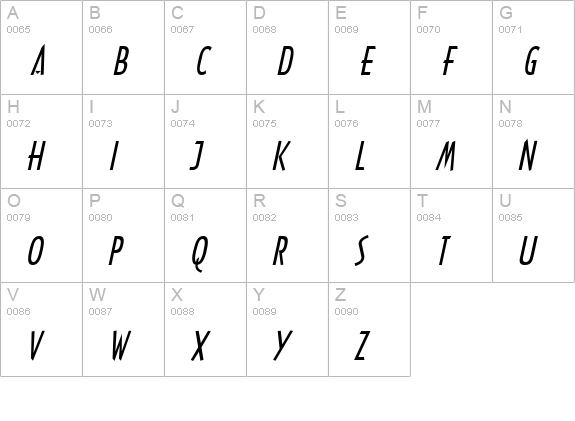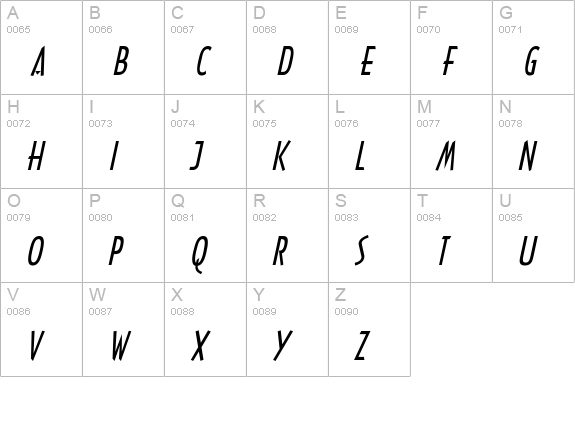
Arcane Italic Font Details
Arcane Italic is a distinctive, italic variant in the Arcane typeface family \xE2\x80\x94 well suited to design and typography projects.
Arcane Italic font is a mesmerizing and enchanting typeface that exudes an aura of mystique and elegance. Its sleek, slanted design adds a touch of sophistication to any project, making it perfect for branding, packaging, and editorial purposes. The intricate curves and sharp angles of Arcane Italic give it a unique and captivating appeal that commands attention. What makes Arcane Italic even more enticing is that it is completely free to download! You can get your hands on this stunning font at FontsMarket.com, where you'll find a wide selection of high-quality fonts for all your design needs. Don't miss out on the opportunity to elevate your projects with the alluring charm of Arcane Italic. Download it today and let your creativity soar!